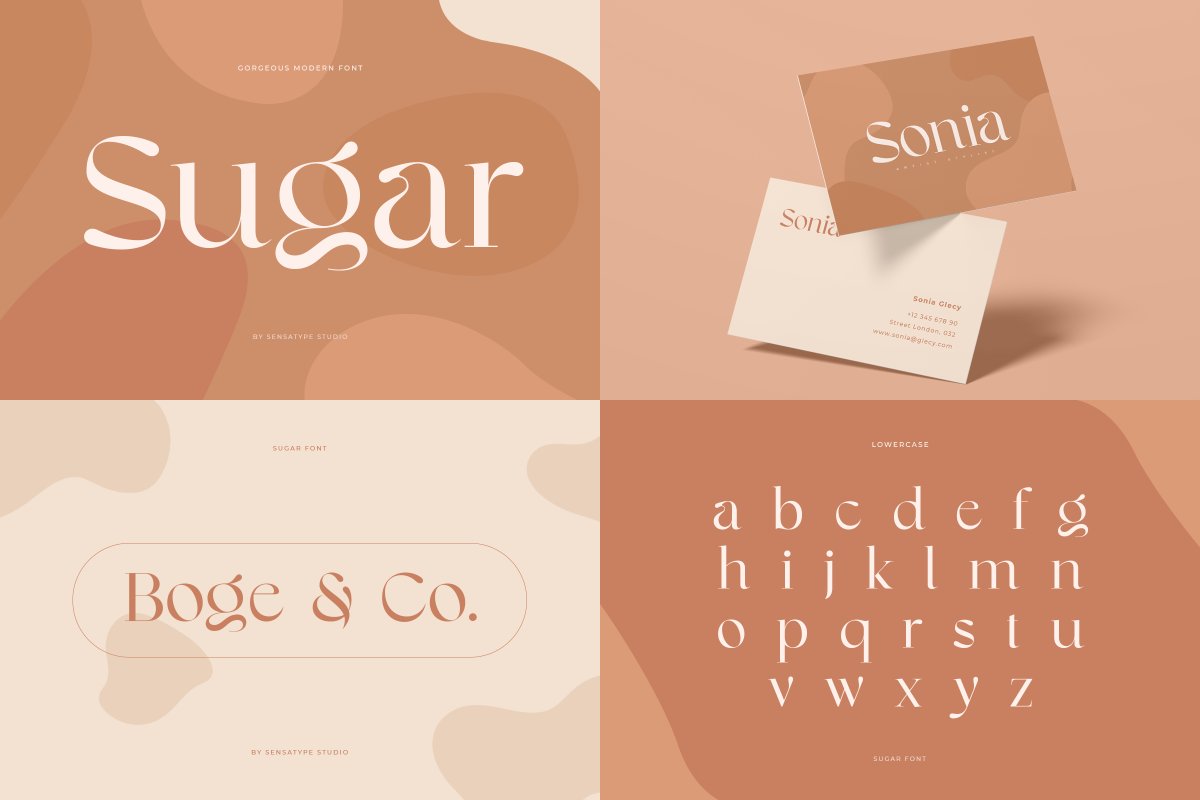
Unique Branding Modern Bundle Font Family Free Download
About the Unique Branding Modern Bundle Font
12 in 1 Unique Branding Modern Font Bundle, SALE!!! 80% OFFBased on our experience as a graphic designer who works for a lot of companies, we often are requested to design a logo in a unique style but with a Meaningful feels, So, we try to brainstorming and create some of unique font to make the idea is going out with ready to use easily, This is perfect for BRANDING and LOGO DESIGN